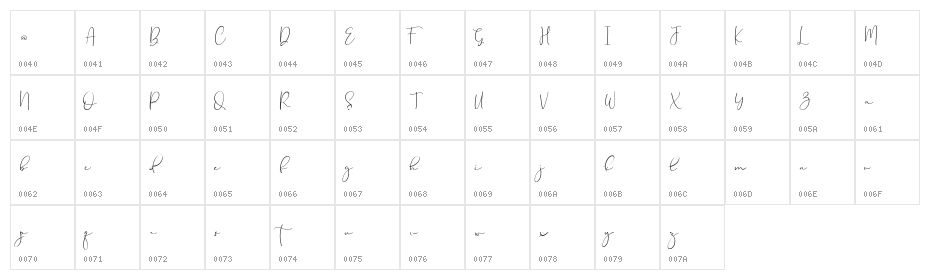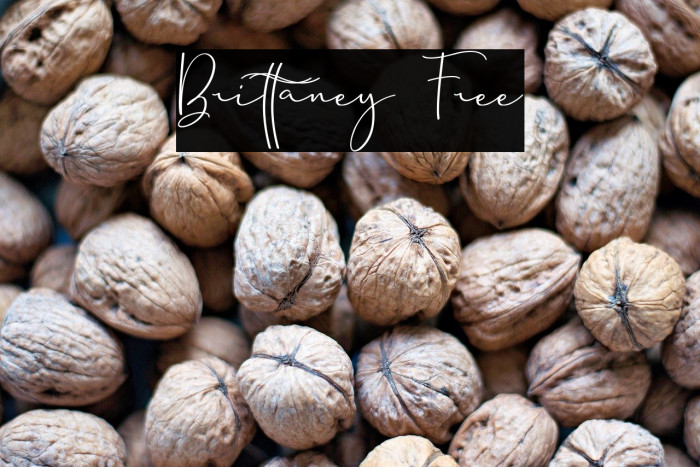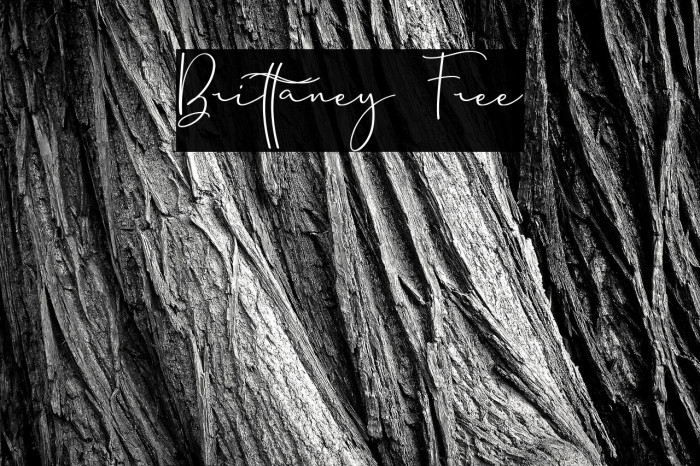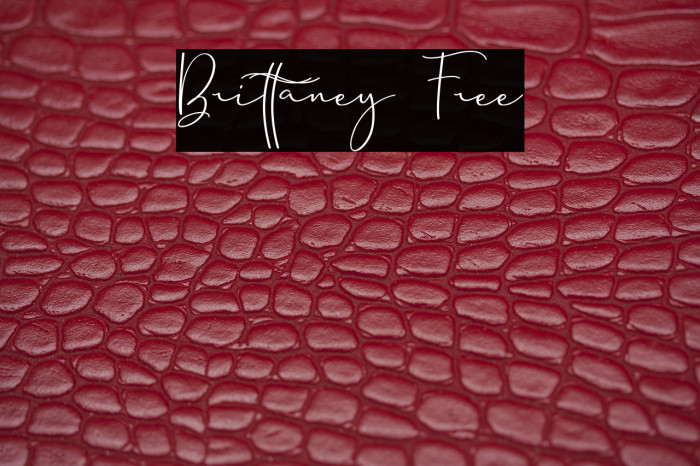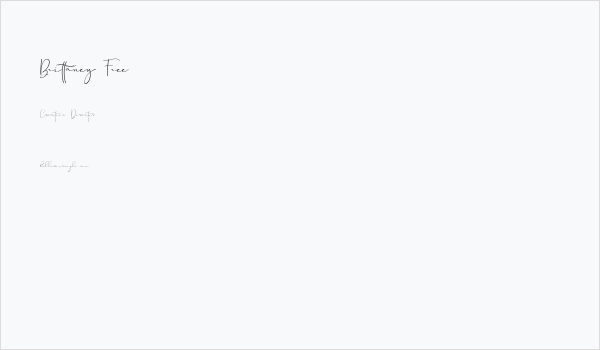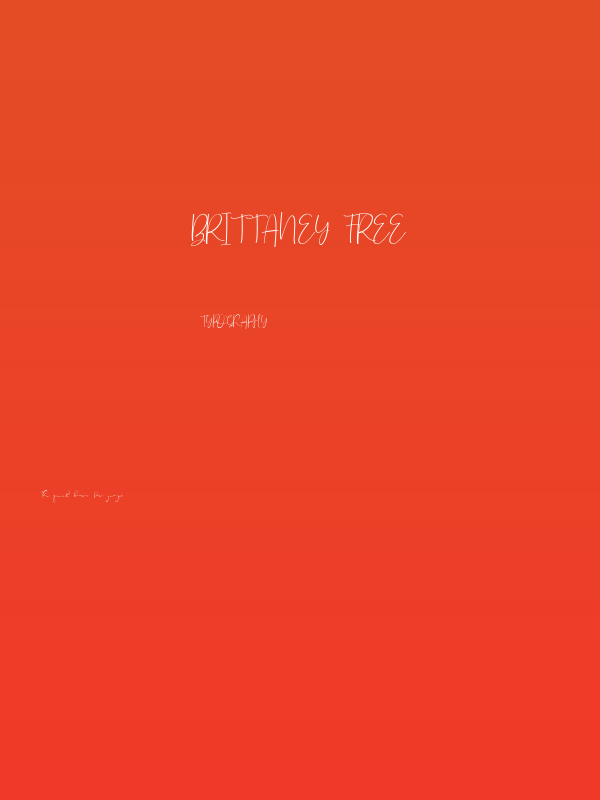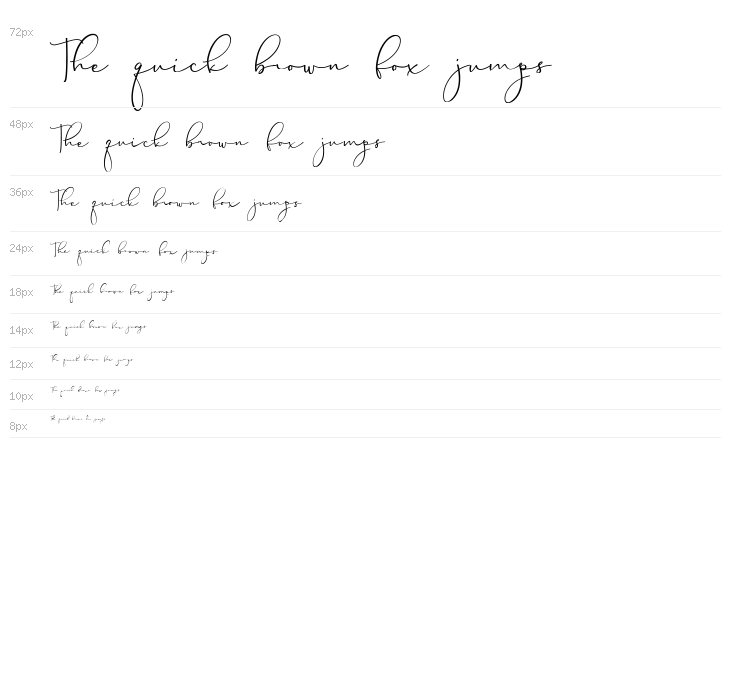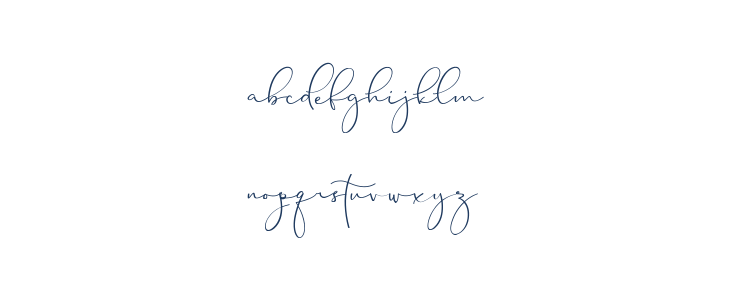
Brittaney Free Font
Brittaney Free Description
This font features an elegant and flowing script style, characterized by its delicate and intricate letterforms. The strokes are thin and graceful, with a natural, handwritten appearance that exudes sophistication and charm. The uppercase letters are tall and slightly elongated, while the lowercase letters maintain a consistent flow with smooth curves and loops. The overall design is airy and light, making it suitable for projects that require a touch of elegance and personal flair. The font's unique style is perfect for creating a sense of warmth and intimacy in any design.
| Overall Style | Elegant, Handwritten |
| Proposed Projects | Ideal for wedding invitations, greeting cards, personal branding, and elegant packaging designs. |